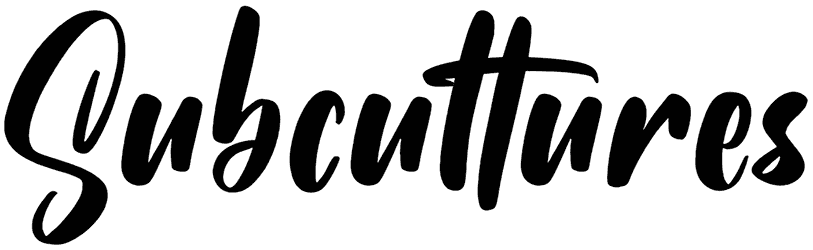
Subcultures Font
Choosing a modern handwritten font can be an apt choice to beautify a lot of designs with various subjects. Subcultures font has a mild hand-lettered form that would be an entertaining show for creative designs such as posters, ads, illustrations, postcards, and so forth. Full support of characters would give you a chance to use this script font for any short or long text.